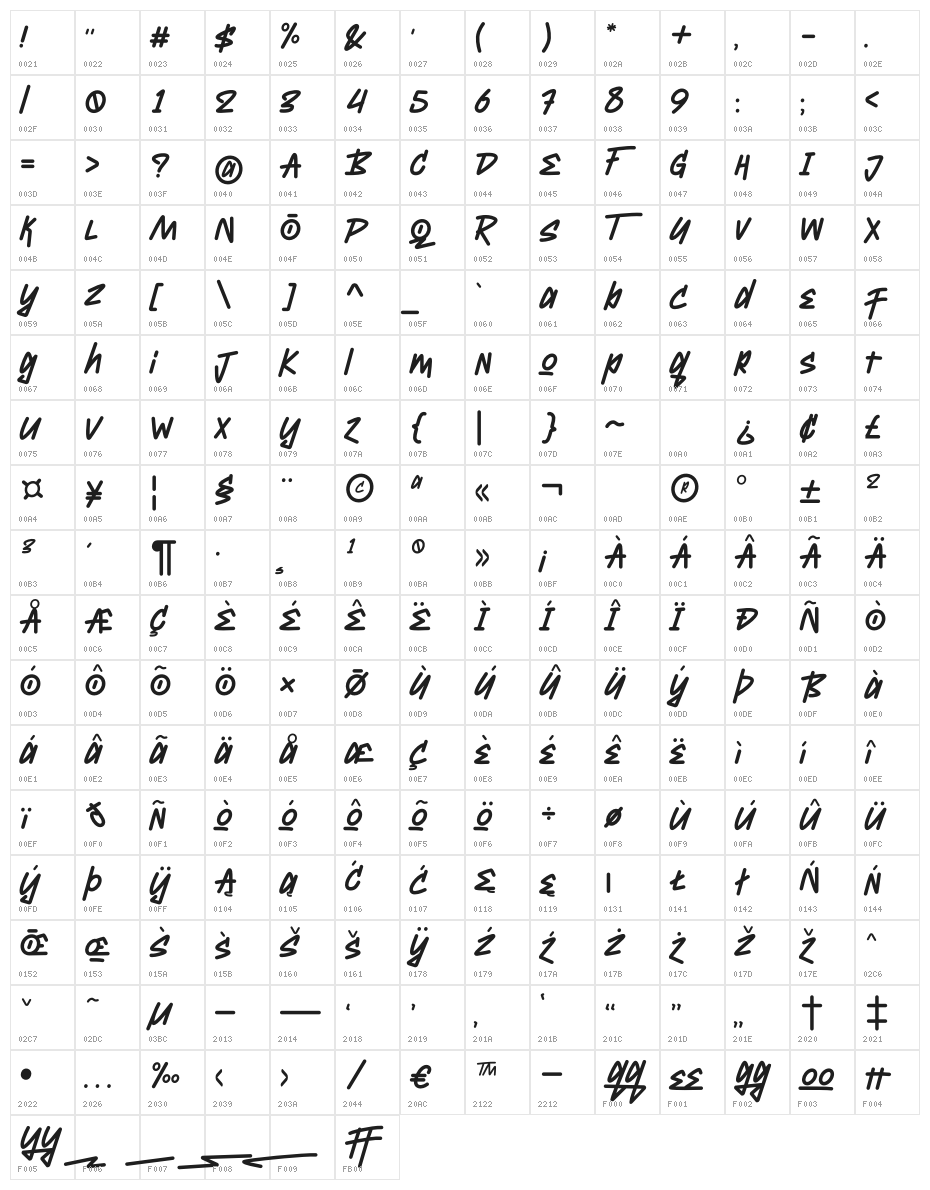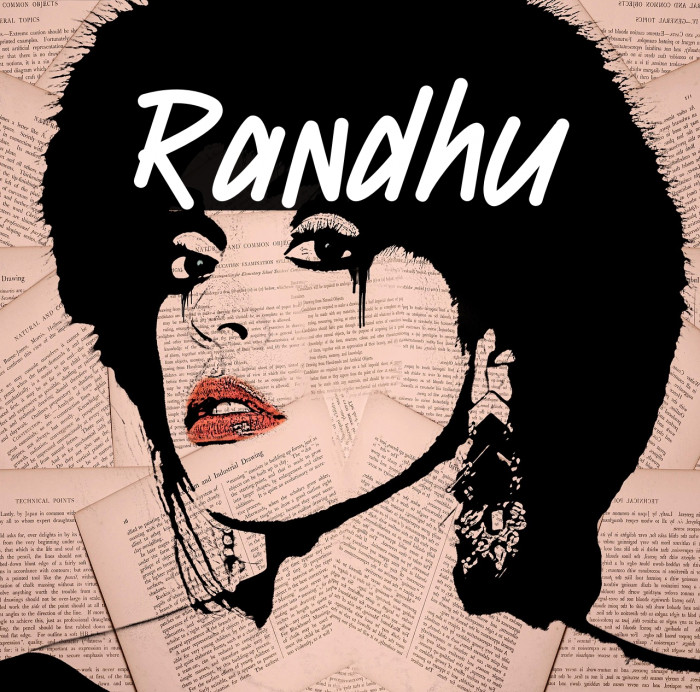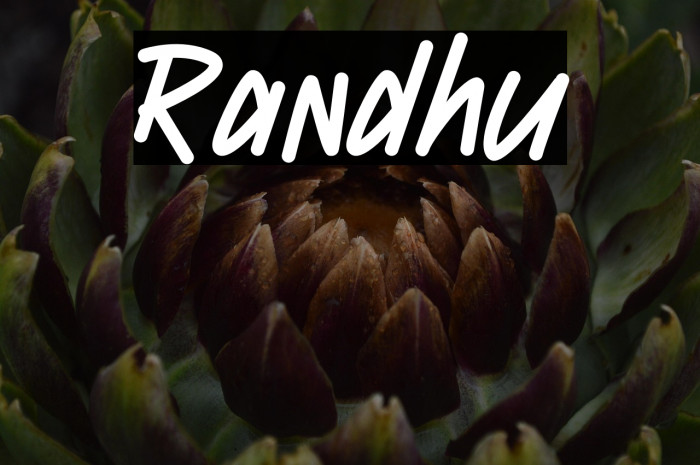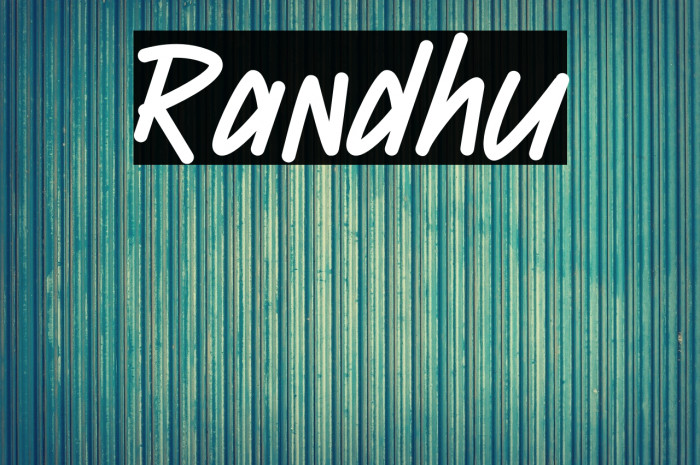
Randhu Font
Randhu Description
This font exudes a dynamic and energetic style, characterized by its bold and fluid script. The letters are slightly slanted, giving it a sense of motion and liveliness. The strokes are thick and consistent, providing a strong visual impact. The uppercase and lowercase letters maintain a cohesive look, with rounded edges and a casual, handwritten feel. Numbers and special characters follow the same design principles, ensuring uniformity across all elements. This font is ideal for projects that require a personal touch or a sense of informality.
| Use Case | Logos, Headlines, Posters |
| Proposed Projects | Ideal for branding, posters, social media graphics, and any project requiring a lively, personal touch. |